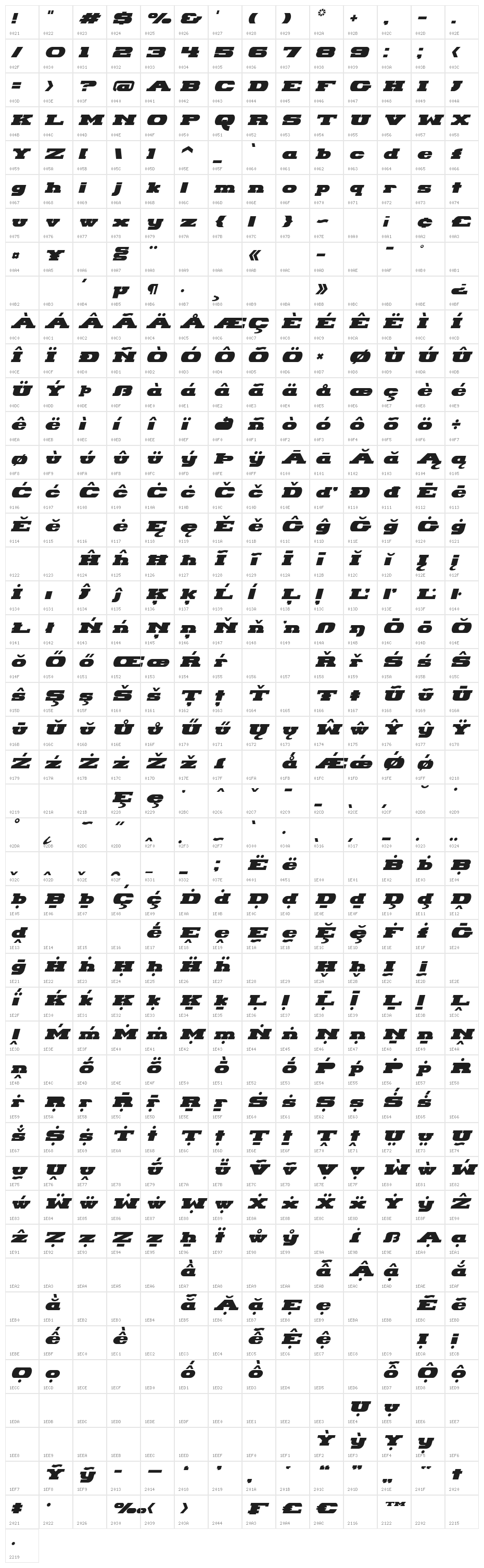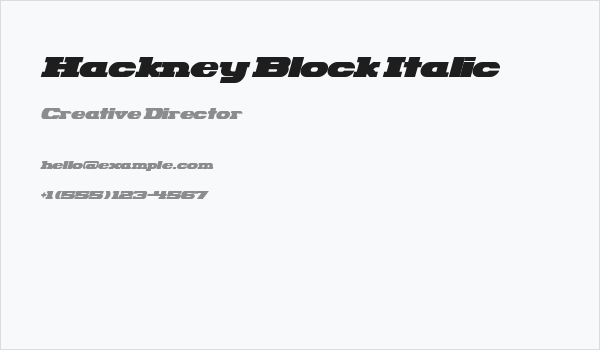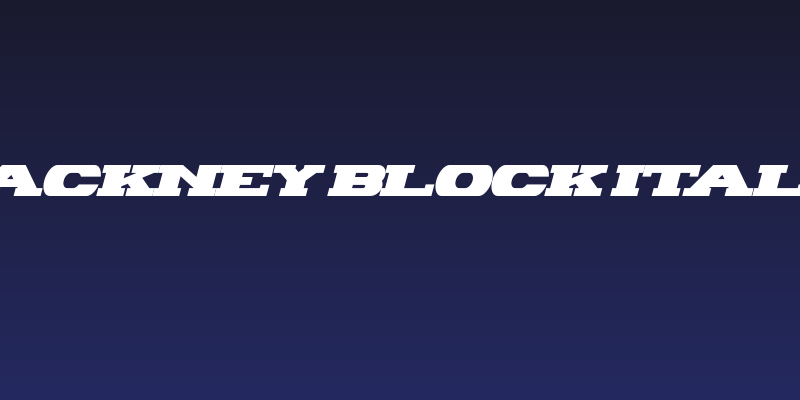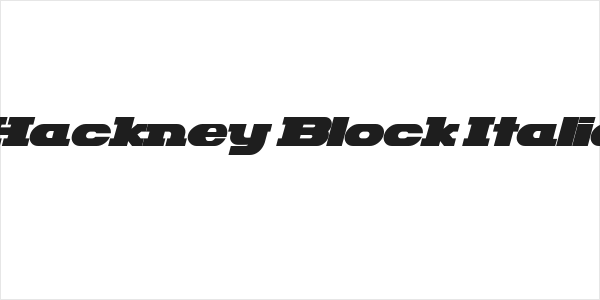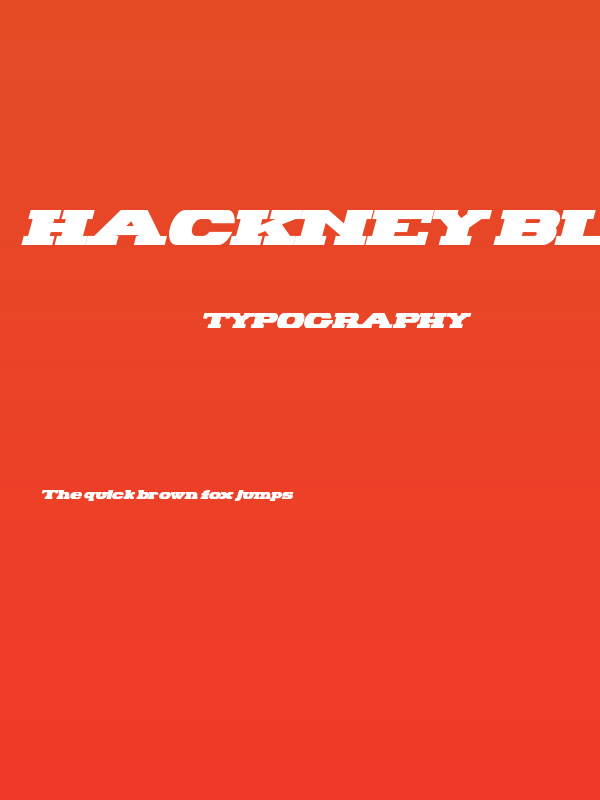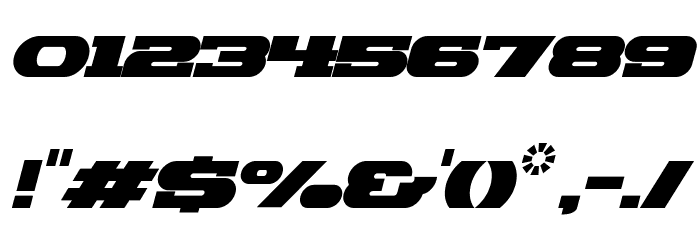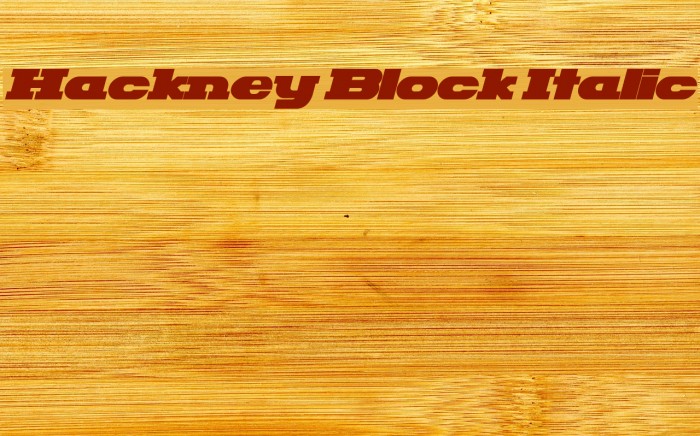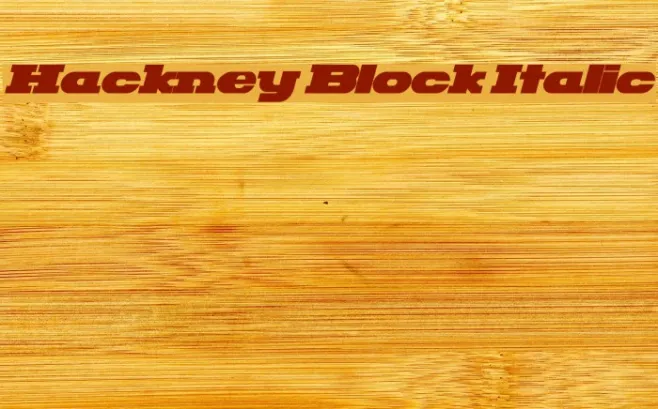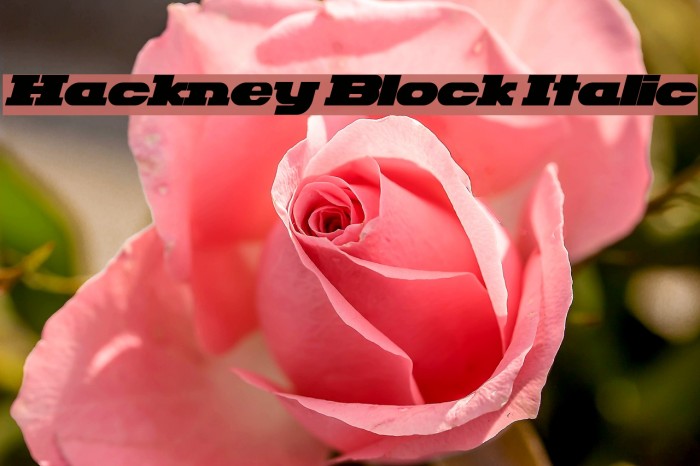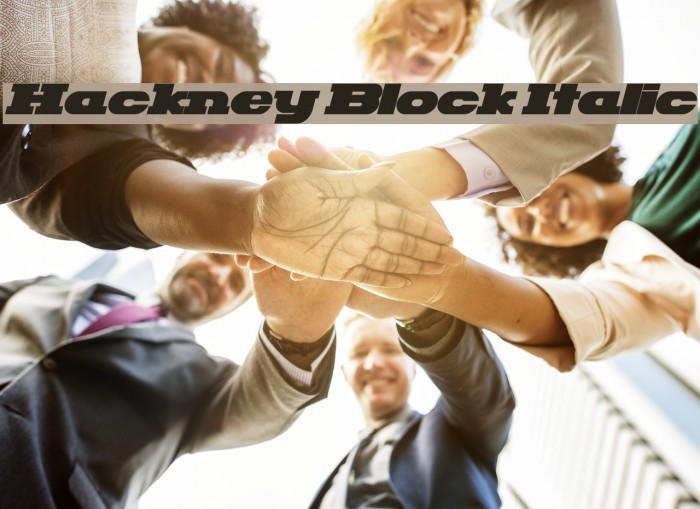
Hackney Block Italic Font
Hackney Block Italic Description
This font features a bold, italicized style with a strong, blocky appearance. The characters are heavily weighted, giving them a powerful and impactful look. The italic slant adds a dynamic and forward-moving energy, making it suitable for attention-grabbing headlines or titles. The letters are closely spaced, enhancing the compact and robust feel of the font. The numbers and special characters maintain the same bold and italicized characteristics, ensuring consistency across all elements. This font's design is modern and assertive, perfect for projects that require a strong visual presence.
| Proposed Projects | Ideal for headlines, posters, branding, and any design needing a strong, impactful typeface. |